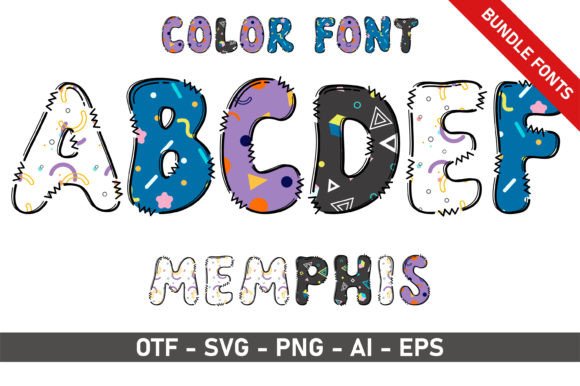
Welcome to our realm of creativity, where fonts dance across the digital canvas, capturing the spirit of childhood and inspiring stories that come alive. Meet the Memphis Bundle Font, a symphony of colors that will ignite your imagination and transform your creative endeavors into enchanting masterpieces.
Dive into a rainbow of colors as you explore this bundle, a treasure trove of fonts brimming with personality and endless possibilities. Each letter, a brushstroke of pure joy, beckons you to weave tales that captivate young minds and leave them spellbound. With the Memphis Bundle Font by your side, you'll create designs that spark curiosity, ignite imaginations, and transport readers to worlds beyond their wildest dreams.
Picture a storybook where words dance in harmony with whimsical characters, where each page is a canvas of vibrant hues. The Memphis Bundle Font becomes your magic paintbrush, painting pictures with letters that leap off the page and into the hearts of your readers. Its playful curves and cheerful strokes bring life to bedtime stories and fairy tales, creating an immersive experience that captivates children and leaves them begging for more.
In a world saturated with digital distractions, the Memphis Bundle Font stands out as a beacon of creativity, encouraging children to embrace the joy of reading and storytelling. Its easy-to-read design invites them on a visual adventure, making learning a delightful and engaging experience. As they trace the contours of each letter, they'll discover a hidden world of imagination, where dreams take flight, and anything is possible.